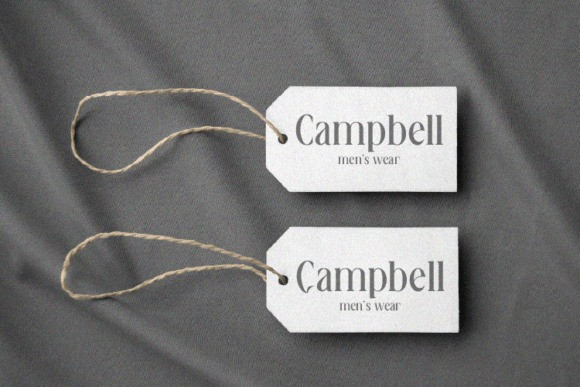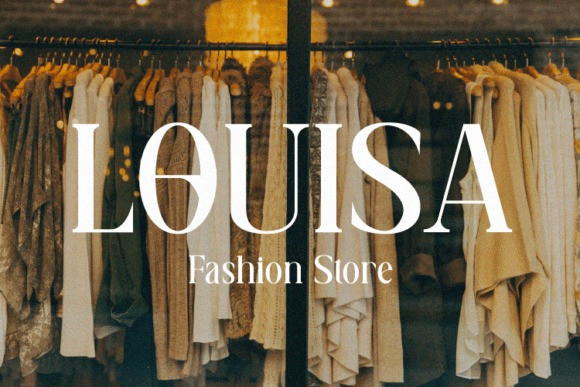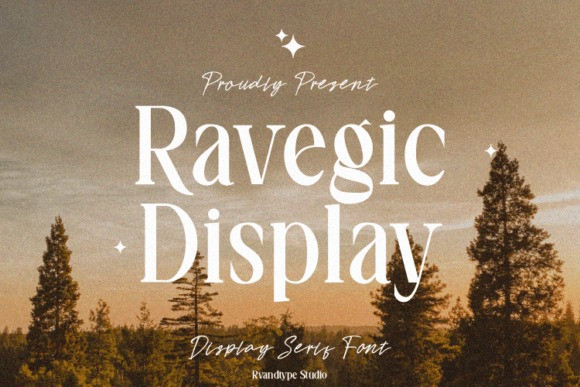
Ravegic Font
Ravegic Serif Font is a cool, thick-lettered, and assertive display font. Featuring the perfect amount of trendiness, this font will make your designs come to life. Ravegic is PUA encoded which means you can access all of the glyphs with ease!